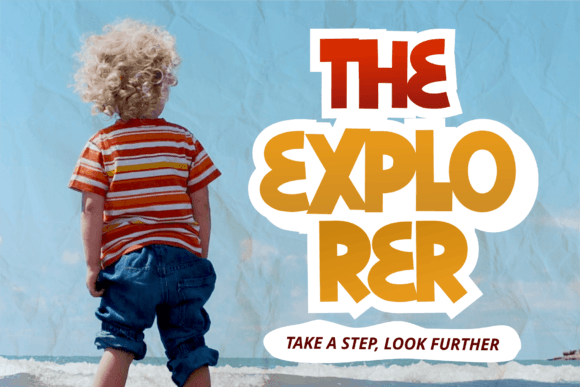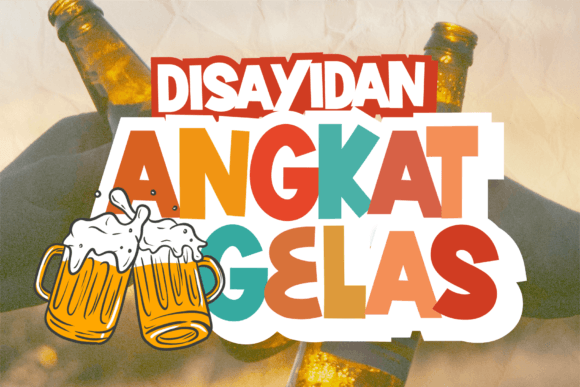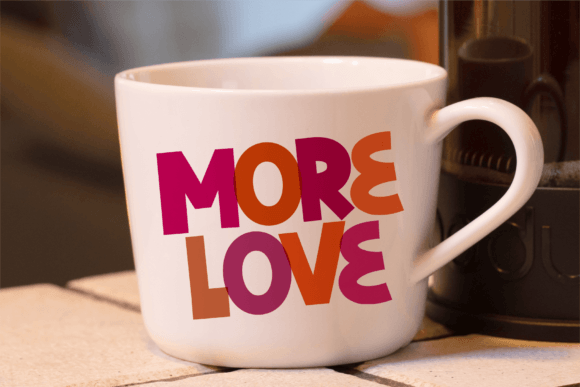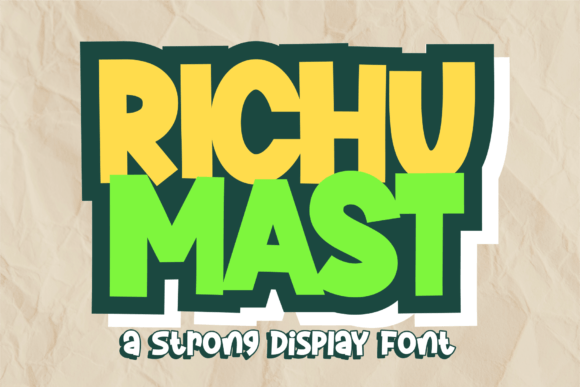
Introduction to Richu Mast Font
Richu Mast is a layered display font inspired by the joyful world of colorful children.
The unique characteristics make it suitable for various purposes such as quotes, T-shirt designs, flyers, YouTube channels, labels, logos, and every other design which needs a playful touch .